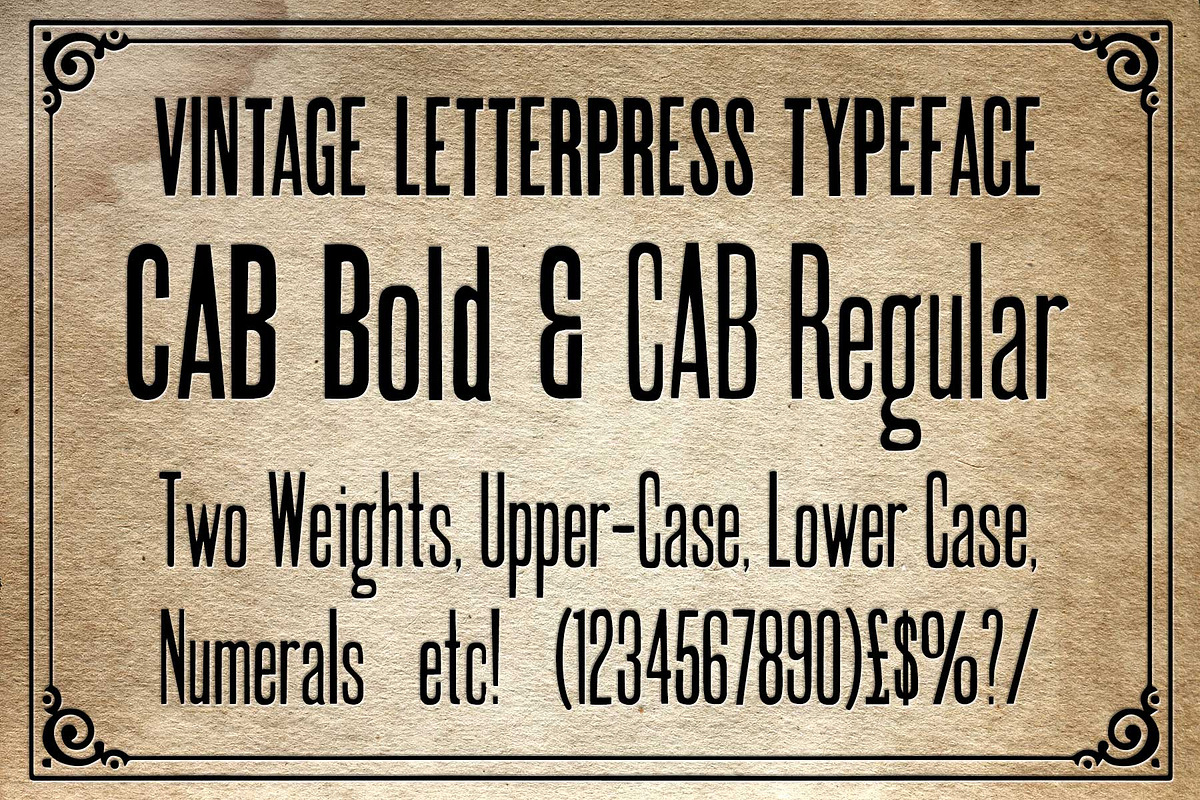
CAB Letterpress font
CAB Letterpress font by Kitch22 Foundry is a font selected for branding, posters, packaging, typography.
- CAB Regular
- CAB Bold
Why CAB Letterpress font is worth a look
CAB Letterpress font by Kitch22 Foundry fits naturally into Branding, posters, packaging, typography.